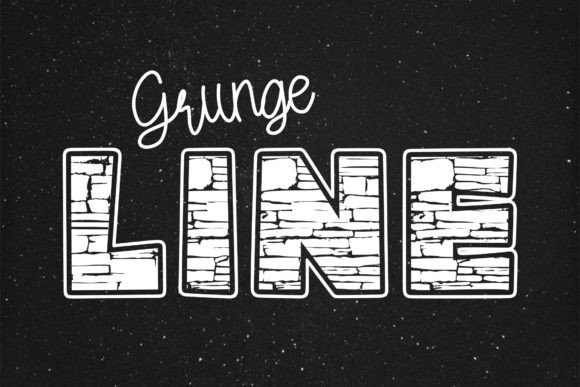
Looking for the best font for your logo design? Look no further than Grunge Line Font! Created by the experts at 18CC FONTs, this decorative font is a versatile and eye-catching addition to any project.
With Grunge Line, you can elevate your branding and social media presence with ease. This font is perfect for logos, giving your brand a unique and memorable look that sets you apart from the competition. But that's not all - Grunge Line is also ideal for crafty DIY projects, giving you the freedom to create stunning designs that truly showcase your creativity.
Whether you're a professional designer or a hobbyist, Grunge Line is the perfect fit for all of your creative endeavors. This font is packed with emotion and personality, making it easy to create designs that are truly captivating.